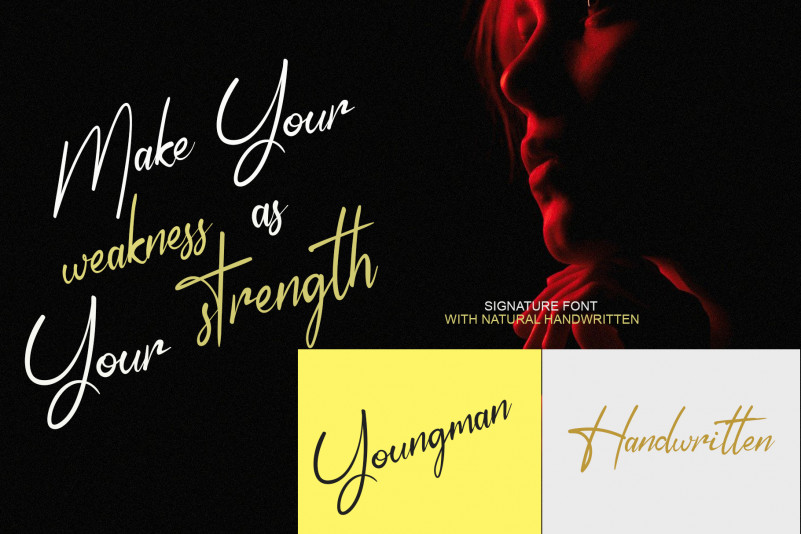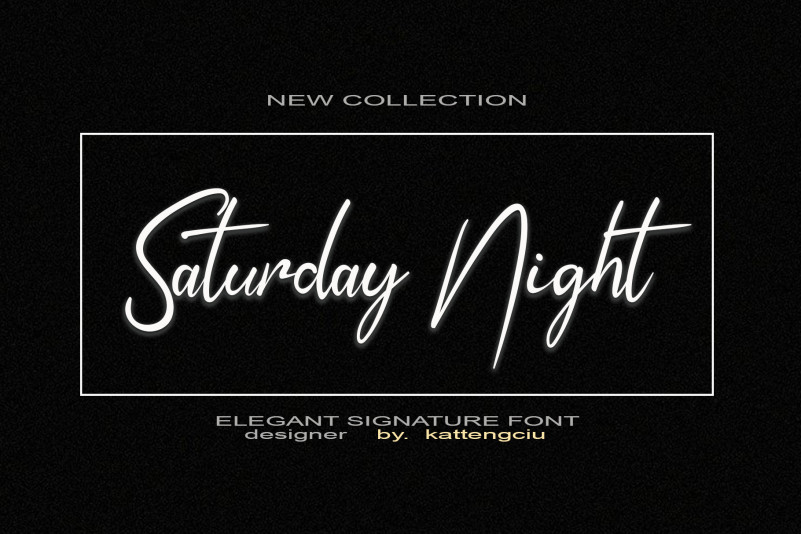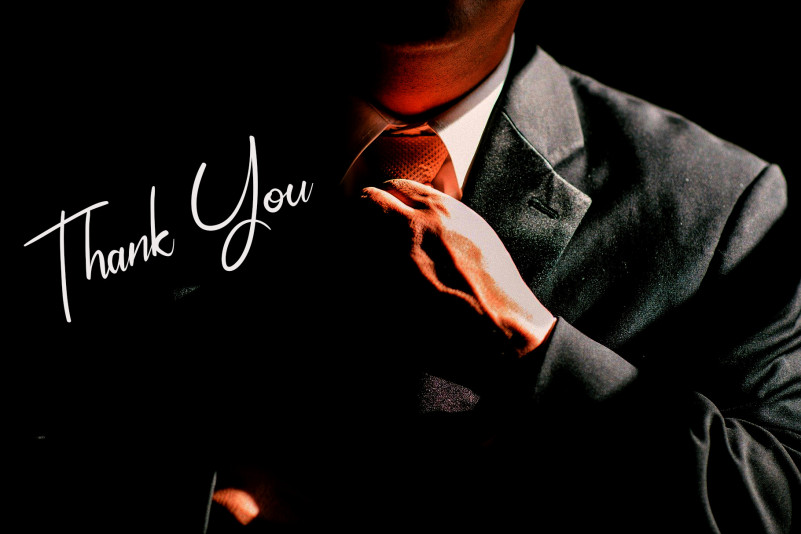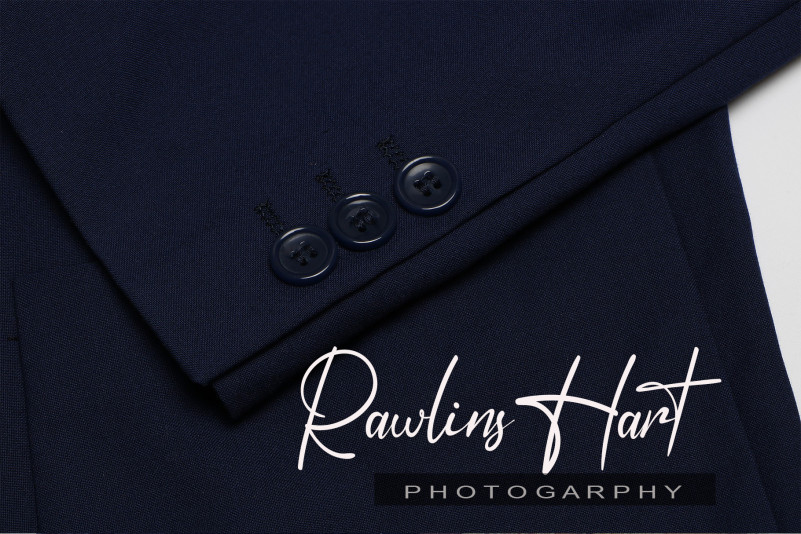
Beautiful Lenttering Font
Beautiful Lenttering Script Font
This is an elegant script font with a contemporary atmosphere and impeccable form, inspired by timeless classic calligraphy. Not too thin and not too thick, balanced and varied, this font was designed to enhance the beauty of your projects.